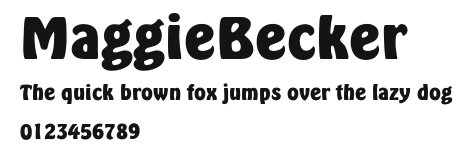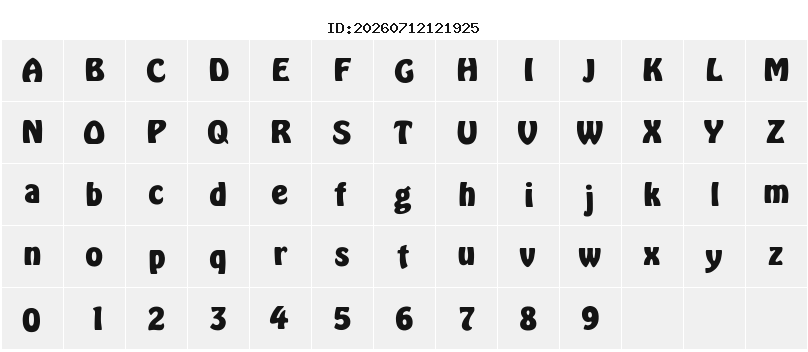
• Font Name: MaggieBecker
• Full Font Name: MaggieBecker Bold
• PostScript Name: MaggieBecker-Bold
• Character Count: 224
About MaggieBecker.ttf
MaggieBecker.ttf is a modern, elegant sans-serif font designed for ultimate readability and visual harmony. Perfect for branding, headlines, web design, and print materials.